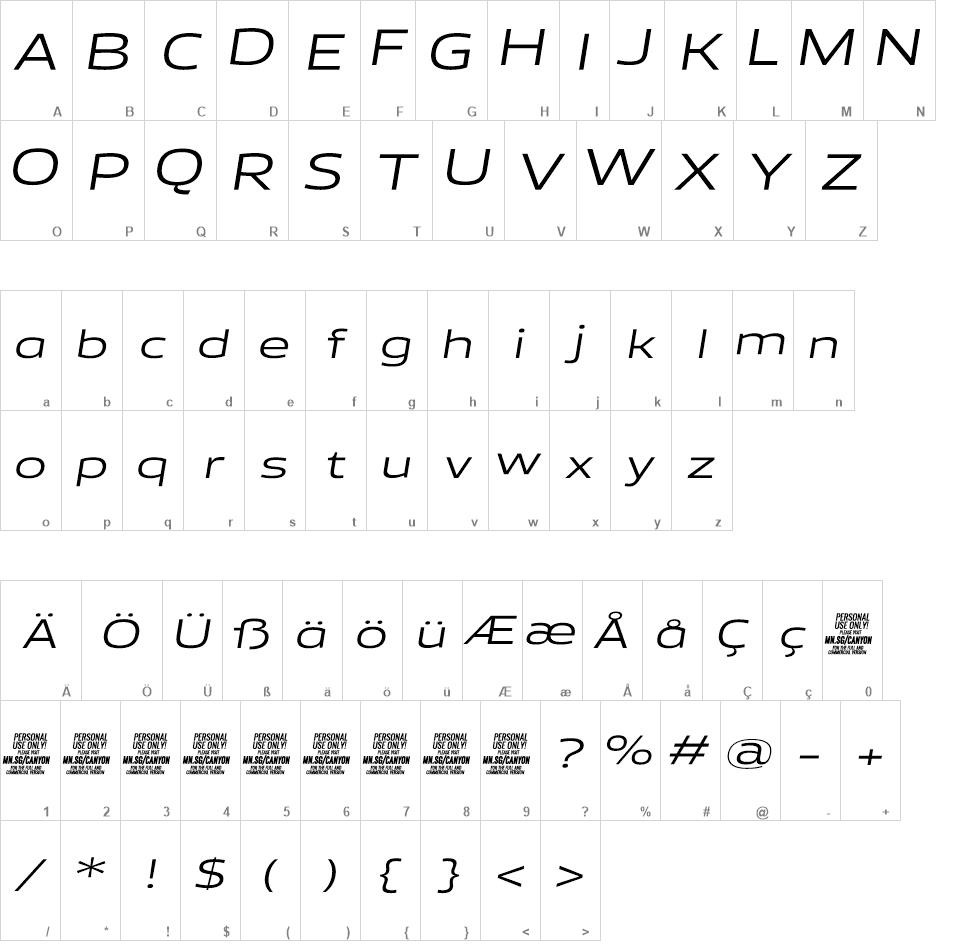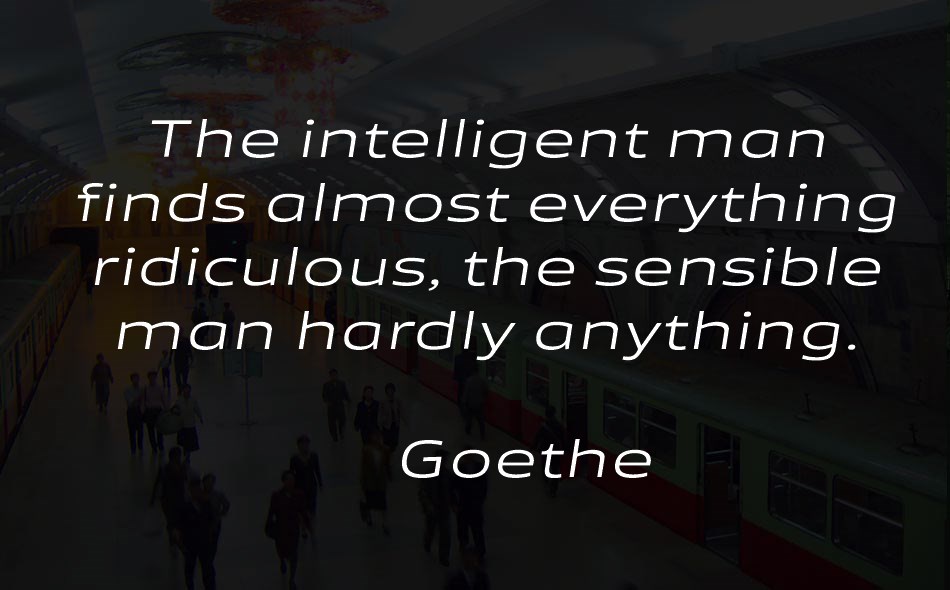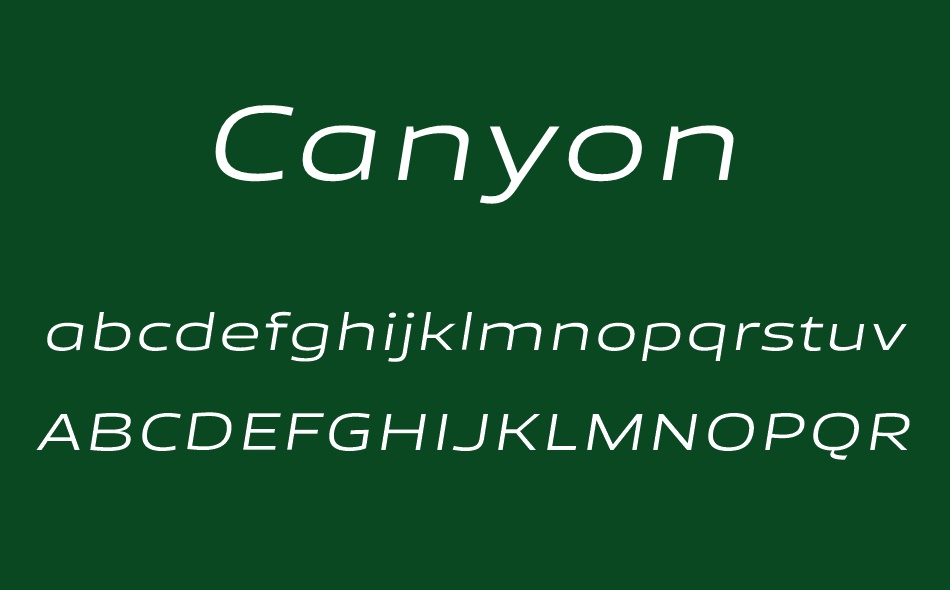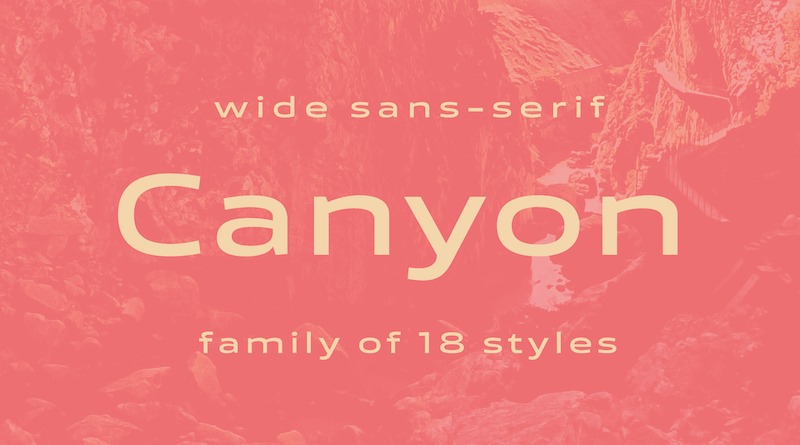
Canyon font
Canyon is an extra-wide sans-serif typeface.
It is recognizable, full of personality, and pleasingly balanced to look at – all while being a regular and legible typeface, suitable for professional usage.
Drawn and created in 2021, Canyon's letterforms are tense, vivid and keep a modern standard.
The family consists of 18 styles in the weights Thin, ExtraLight, Light, Regular, Medium, SemiBold, Bold, ExtraBold and Black, and each weight as Italic: Each style providing additional flexibility and extended usage.
The font is built with advanced OpenType functionality and has a guaranteed top-notch quality, containing stylistic and contextual alternates, ligatures and more features; all to give you full control and customizability. It has extensive lingual support, covering all Latin-based languages, from North Europe to South Africa, from America to South-East Asia. It contains all characters and symbols you'll ever need, including all punctuation and numbers.